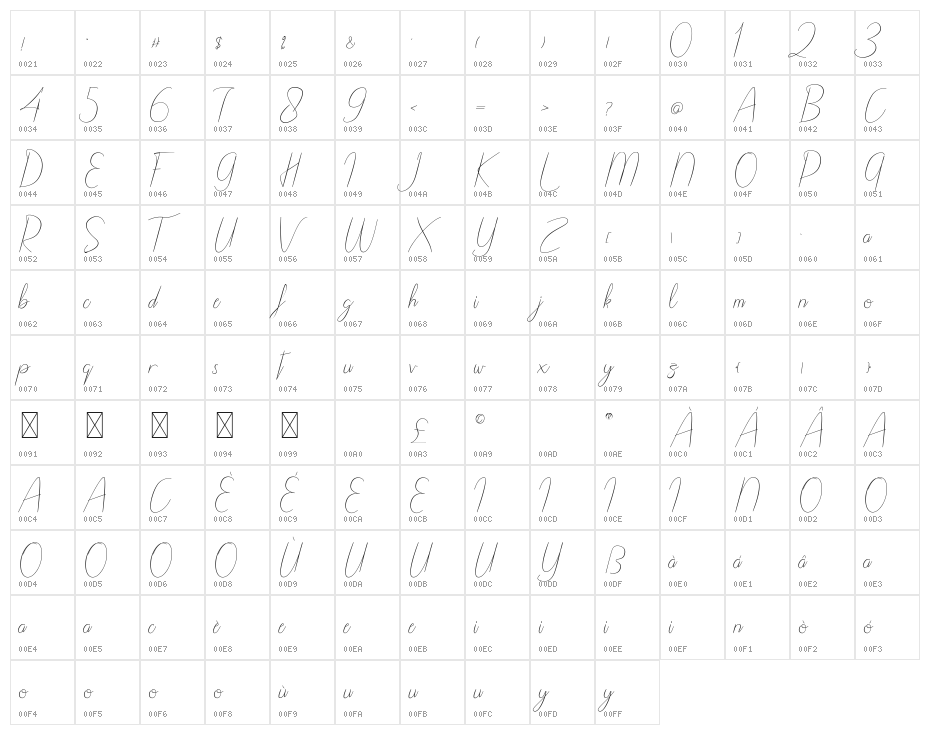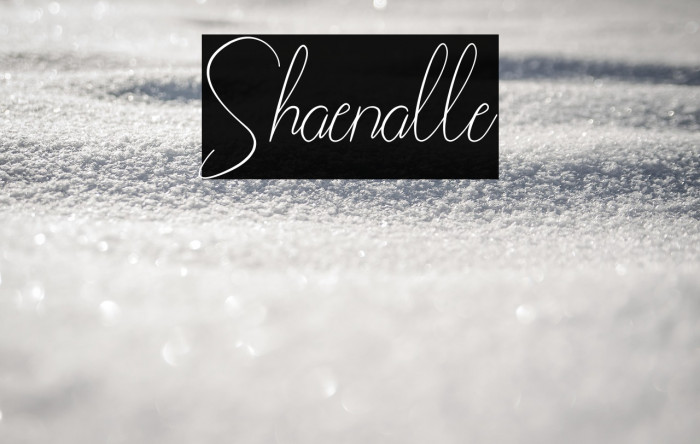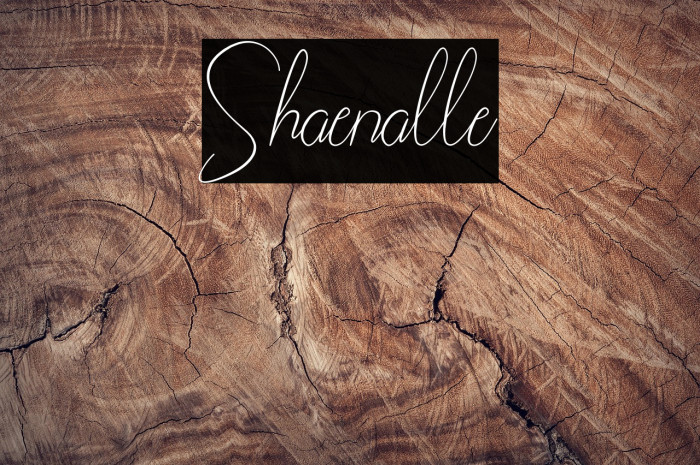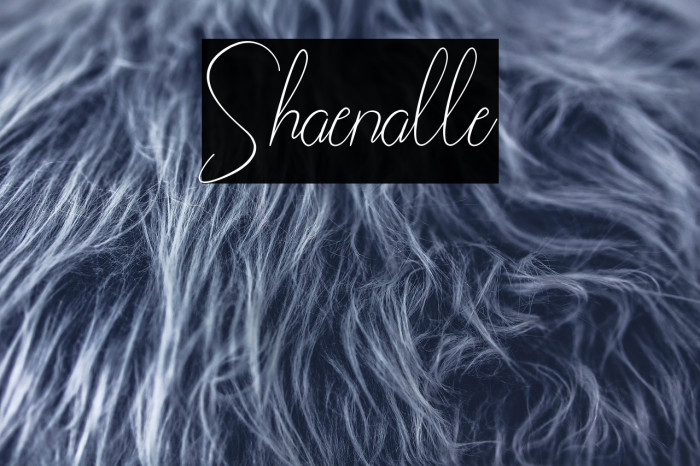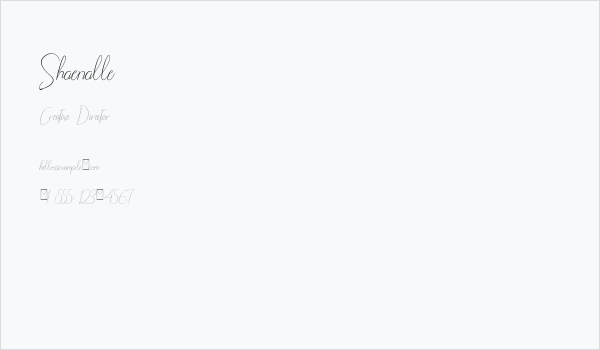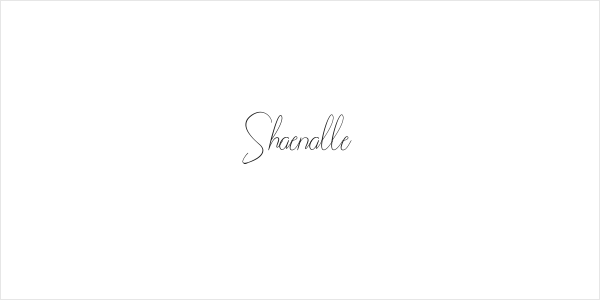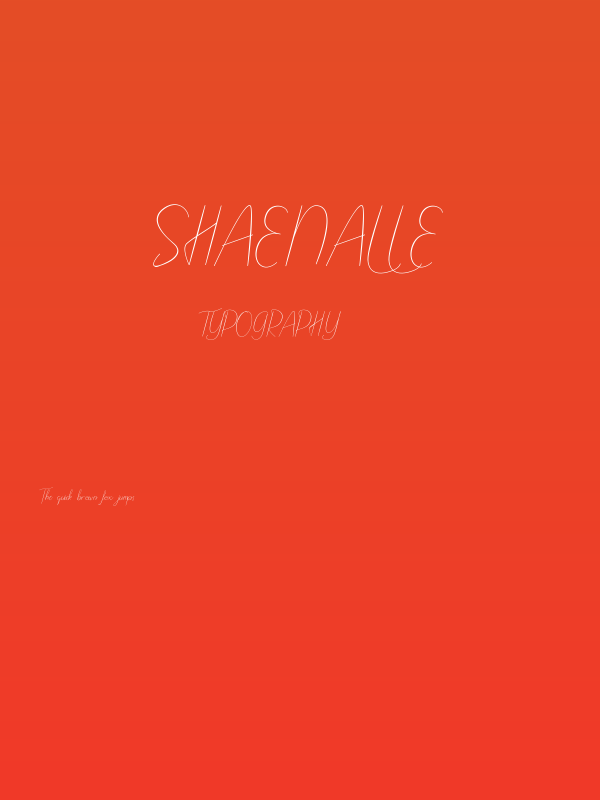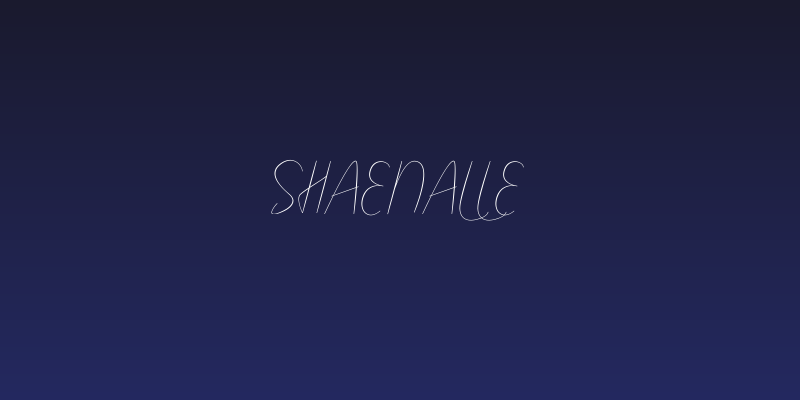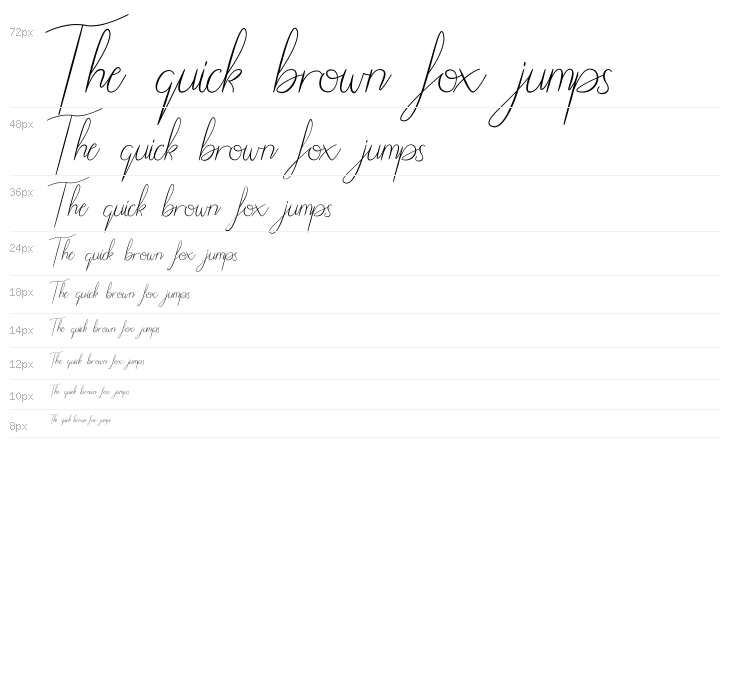
Shaenalle Font
Shaenalle Description
This elegant script font features a delicate, flowing style with thin, graceful lines. The characters are connected in a cursive manner, giving it a handwritten appearance. The uppercase letters are tall and slender, while the lowercase letters maintain a consistent flow with subtle loops and curves. The numerals and special characters are designed to match the overall aesthetic, providing a cohesive look. This font exudes sophistication and charm, making it ideal for projects that require a personal touch.
| Overall Style | Elegant, Handwritten |
| Proposed Projects | Ideal for wedding invitations, greeting cards, personal branding, and elegant stationery. |